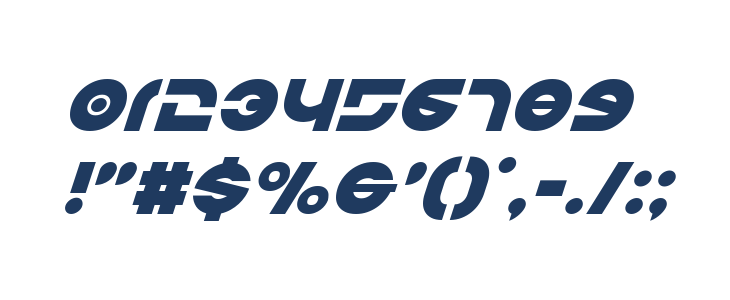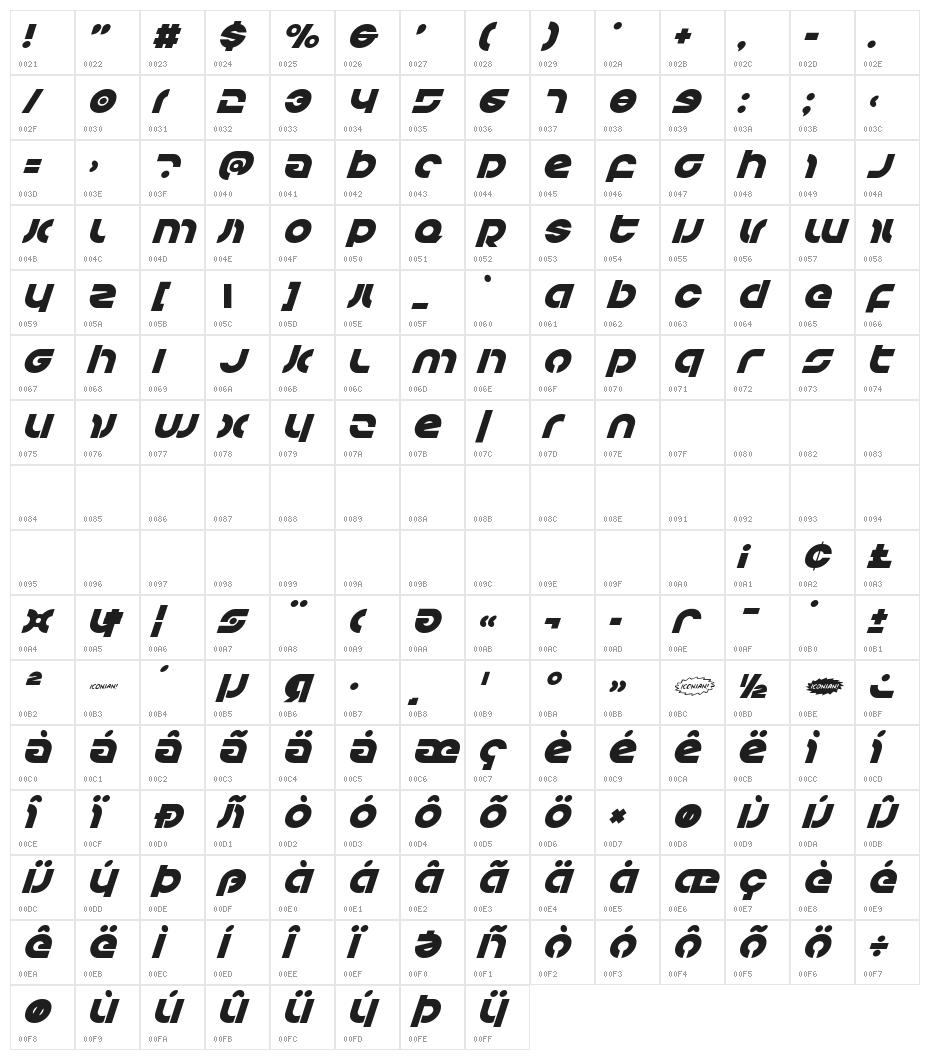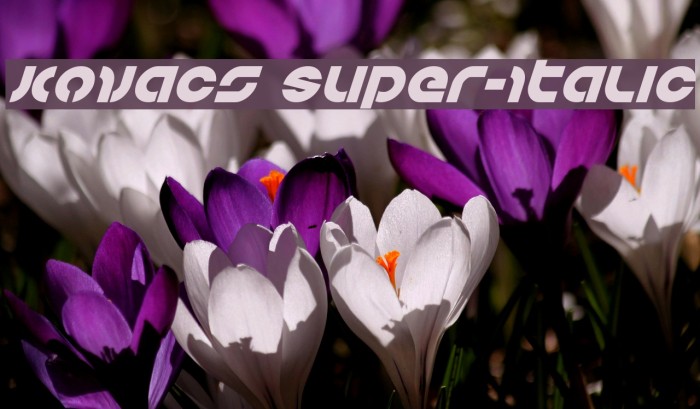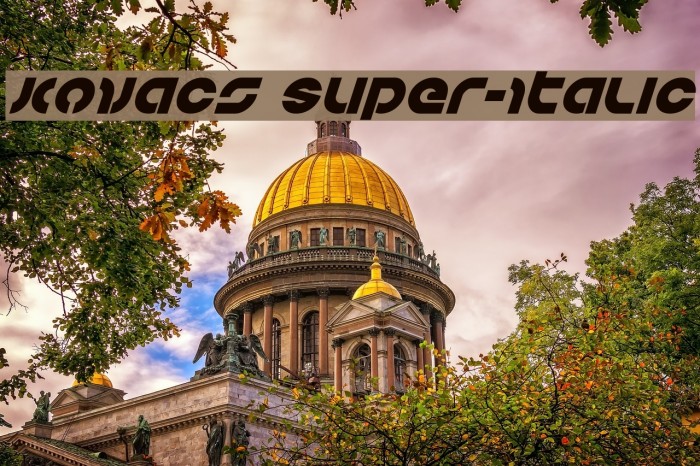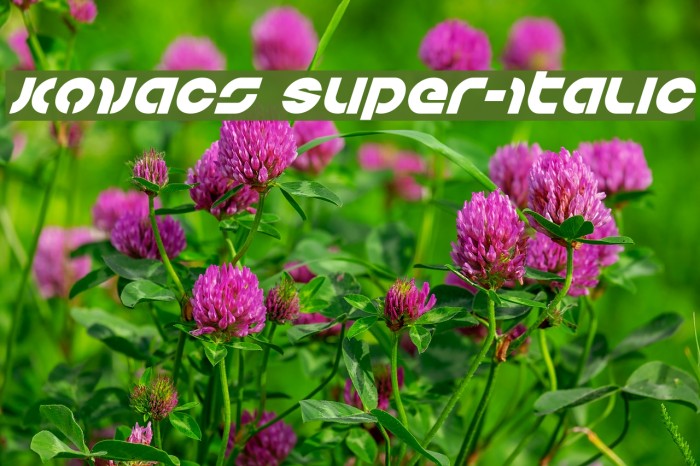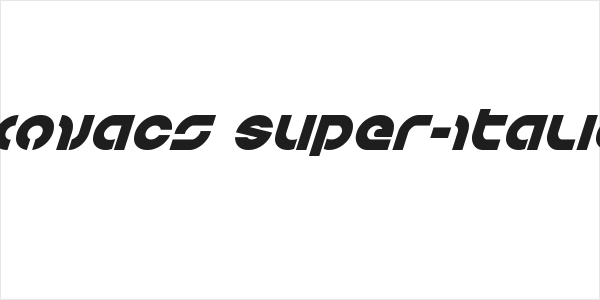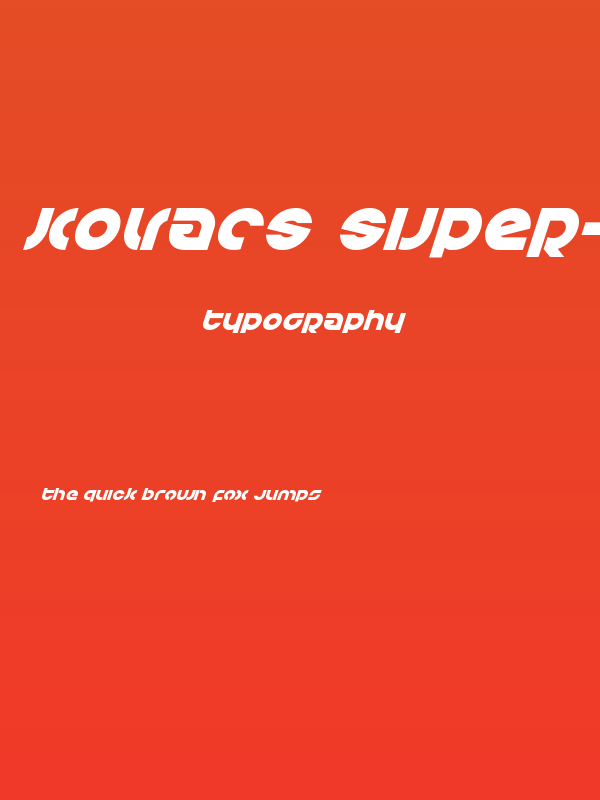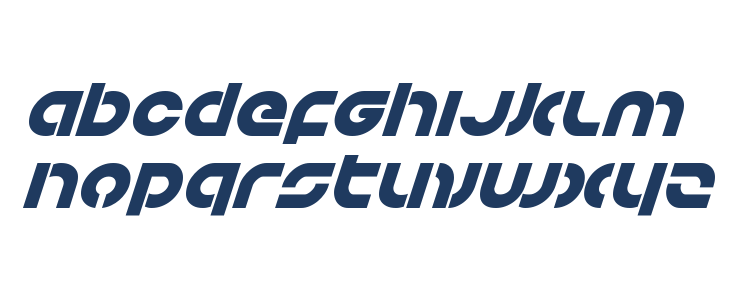
Kovacs Super-Italic Font
Kovacs Super-Italic Description
This font features a bold and dynamic italic style with a futuristic and geometric design. The characters are crafted with sharp angles and smooth curves, giving them a sleek and modern appearance. The uppercase and lowercase letters maintain a consistent slant, enhancing the italicized effect. The numerals and special characters are designed to match the overall aesthetic, with a strong emphasis on boldness and clarity. This font is ideal for projects that require a striking and contemporary look, making it suitable for branding, advertising, and digital media.